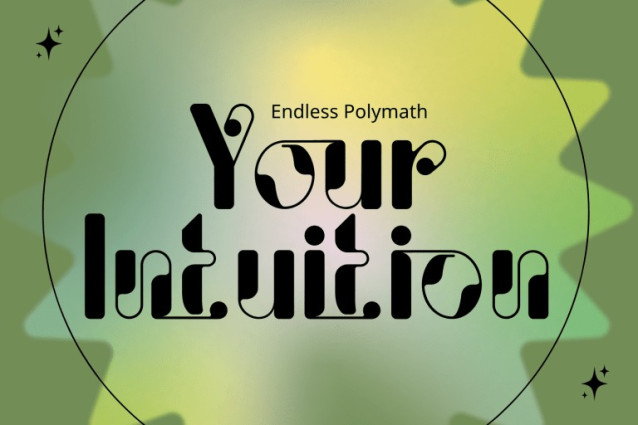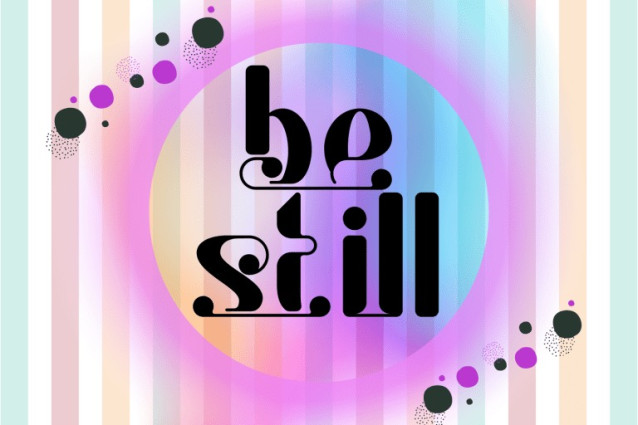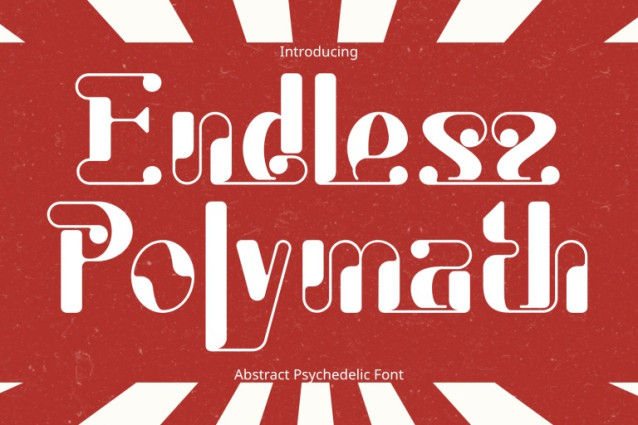
Endless Polymath Font
Endless Polymath – Decorative Font – Retro Decorative Modular Display Font, a unique display font that blends retro charm with modern decorative structure. Each letter is crafted from rounded modular strokes, enhanced with playful swirls, bubble-like terminals, and artistic curves that give the font a bold, expressive personality. Its layered aesthetic creates a rhythmic, eye-catching flow perfect for standout typography. Ideal for vintage posters, branding projects, packaging, editorial titles, music artwork, fashion graphics, or any creative design that needs a touch of retro elegance mixed with modern flair. Endless Polymath brings a handcrafted decorative feel while remaining clean, readable, and visually impactful.
Uppercase & Lowercase Letters
Around 100 Special Ligatures & Alternates
Accented Characters for multilingual support
🔤About 100 ligatures combined with Stylistic Alternates Font: